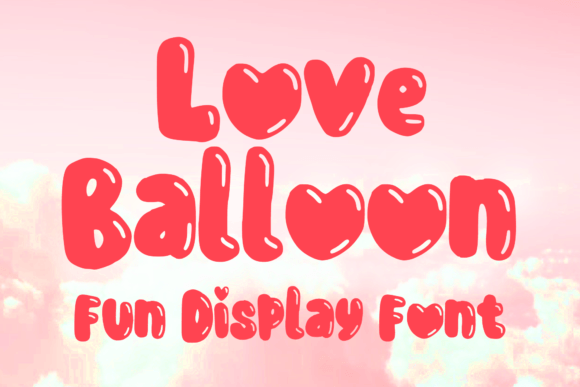
Embark on a romantic journey with Love Balloon Font, a display font that exudes sweetness and charm. Inspired by the magic of Valentine's Day, this font captivates hearts with its whimsical and playful style. Its versatility knows no bounds, making it the perfect companion for t-shirts, kids' book designs, greeting cards, stickers, posters, and any project seeking a touch of casual elegance.
Immerse yourself in Love Balloon's enchanting world, where hearts dance and love blooms. Its playful curves and charming details add a touch of whimsy to your designs, while its clean and legible characters ensure readability and clarity. Whether you're a seasoned designer or just starting, Love Balloon Font is the perfect choice for creating designs that speak to the heart.
Fall head over heels for Love Balloon's versatility. Its ability to adapt to a wide range of projects makes it an indispensable tool in your creative arsenal. From t-shirts that spark joy to kids' books that ignite imagination, Love Balloon Font adds a touch of magic to every design. Create greeting cards that express heartfelt sentiments, stickers that add a pop of fun, and posters that spread love and positivity.
With Love Balloon Font, the possibilities are endless. Its casual and approachable style invites you to embrace your creativity and let your designs flow. Whether you're a blogger looking to add a personal touch to your lifestyle content or a designer seeking a font that sparks conversation, Love Balloon Font is the answer.
So, why wait? Dive into the world of Love Balloon Font today and let your designs blossom with romance, whimsy, and endless possibilities. Embrace the power of love and creativity, and watch your designs soar to new heights.